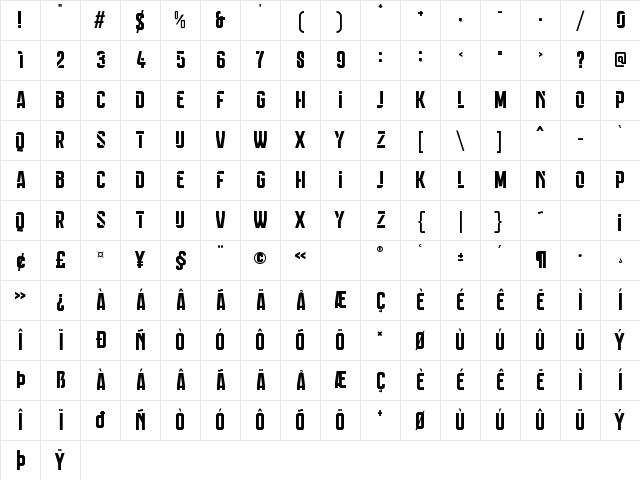
Calcio Italiano Free Personal Use 5 Regular Free Font
Calcio Italiano Free Personal Use 5 Regular
Foundry: Trequartista Studio
Designer: Muhammad Afif Ersya
Design Context for Calcio Italiano Free Personal Use 5
Calcio Italiano Free Personal Use 5 is a composed and adaptable typeface that performs quietly and consistently across a wide range of design contexts.
Who designed the Calcio Italiano Free Personal Use 5 Regular font?